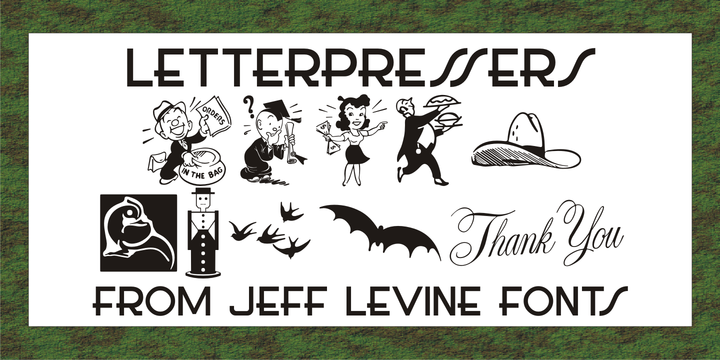
Letterpressers JNL
by Jeff Levine
Another wonderful collection of vintage cartoons, sales helpers, decorations and embellishments comes to you in Letterpressers JNL.